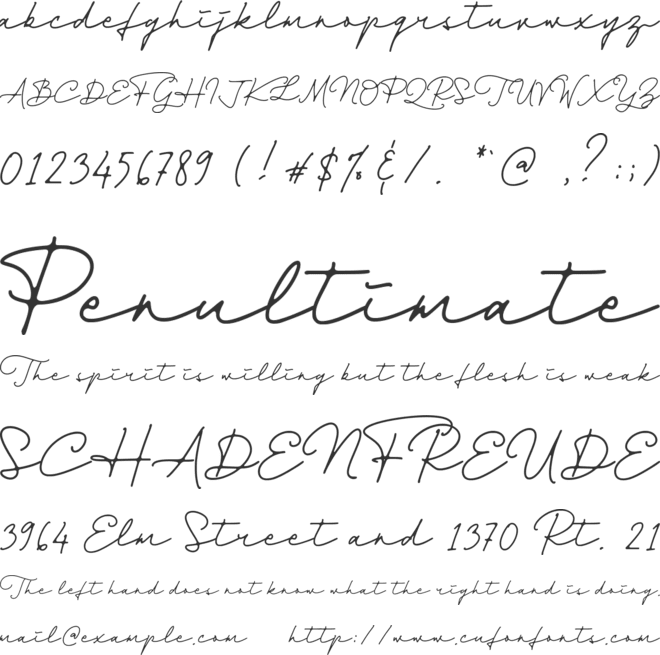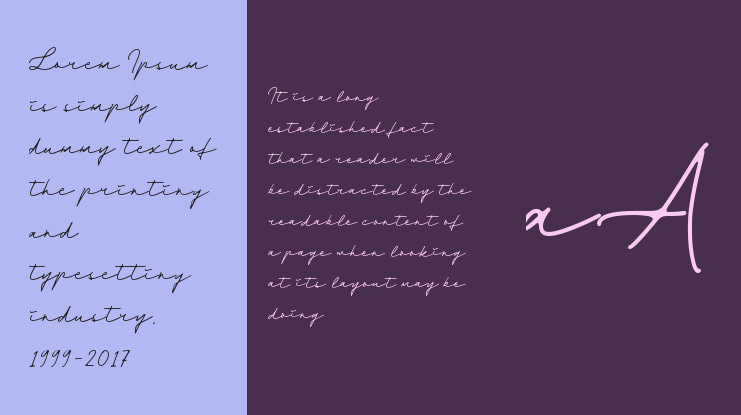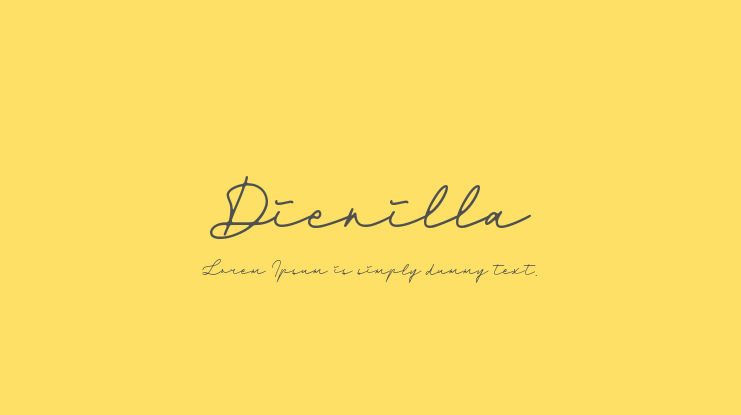
Dienilla Font
DIENILLA - elegant signature font-
It comes with a lot of features :
- 3 weights (Thin, Regular, Bold) - 2 styles of ending swash (all lowercase)